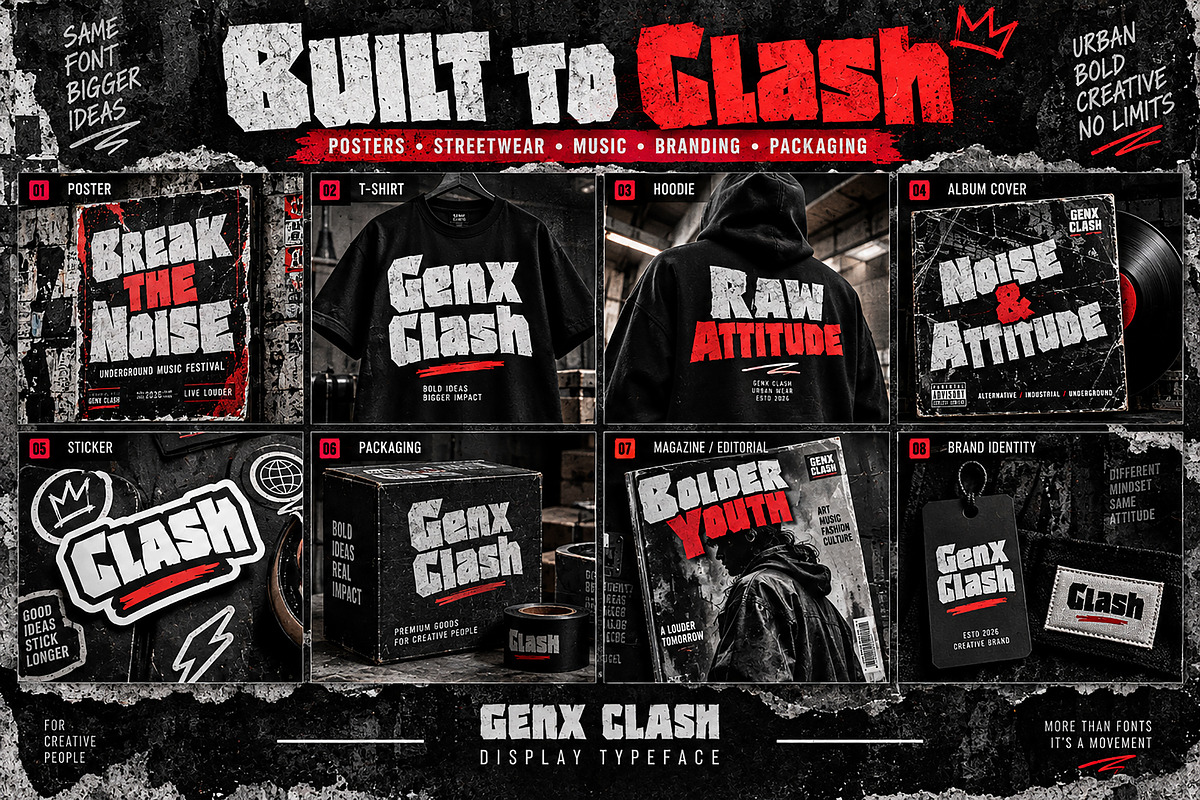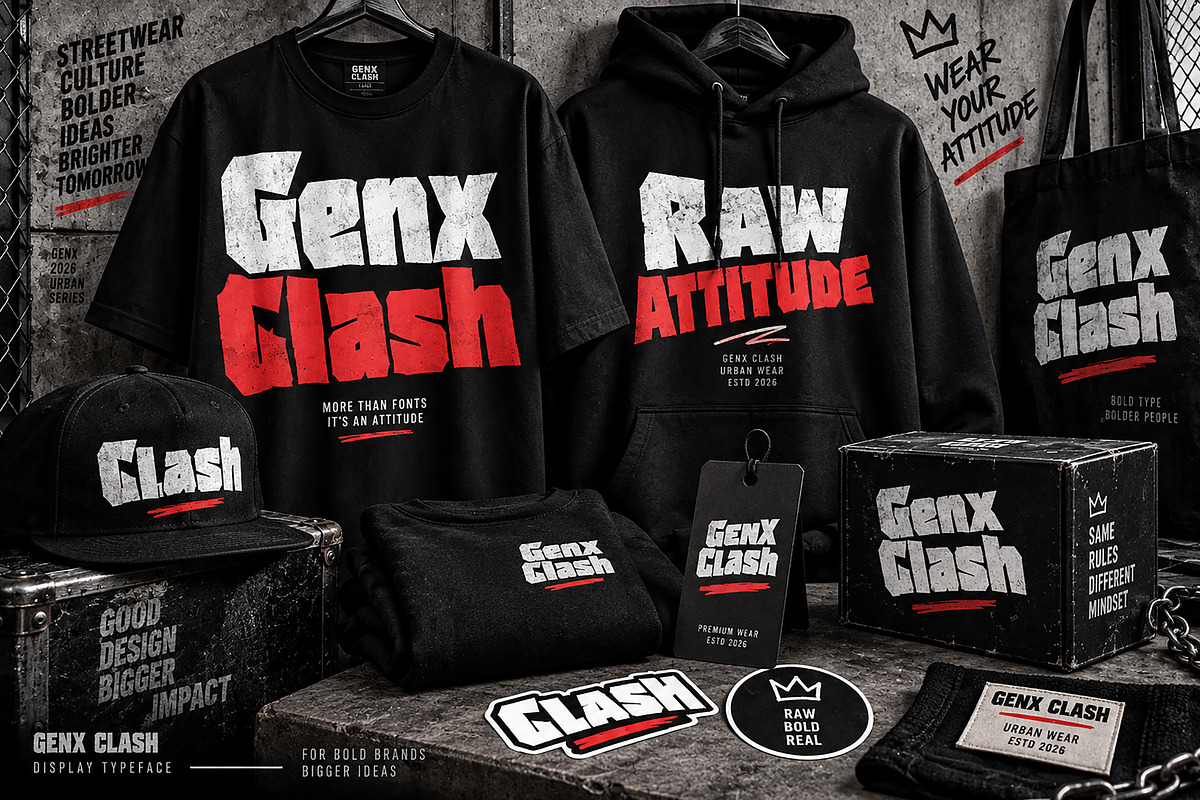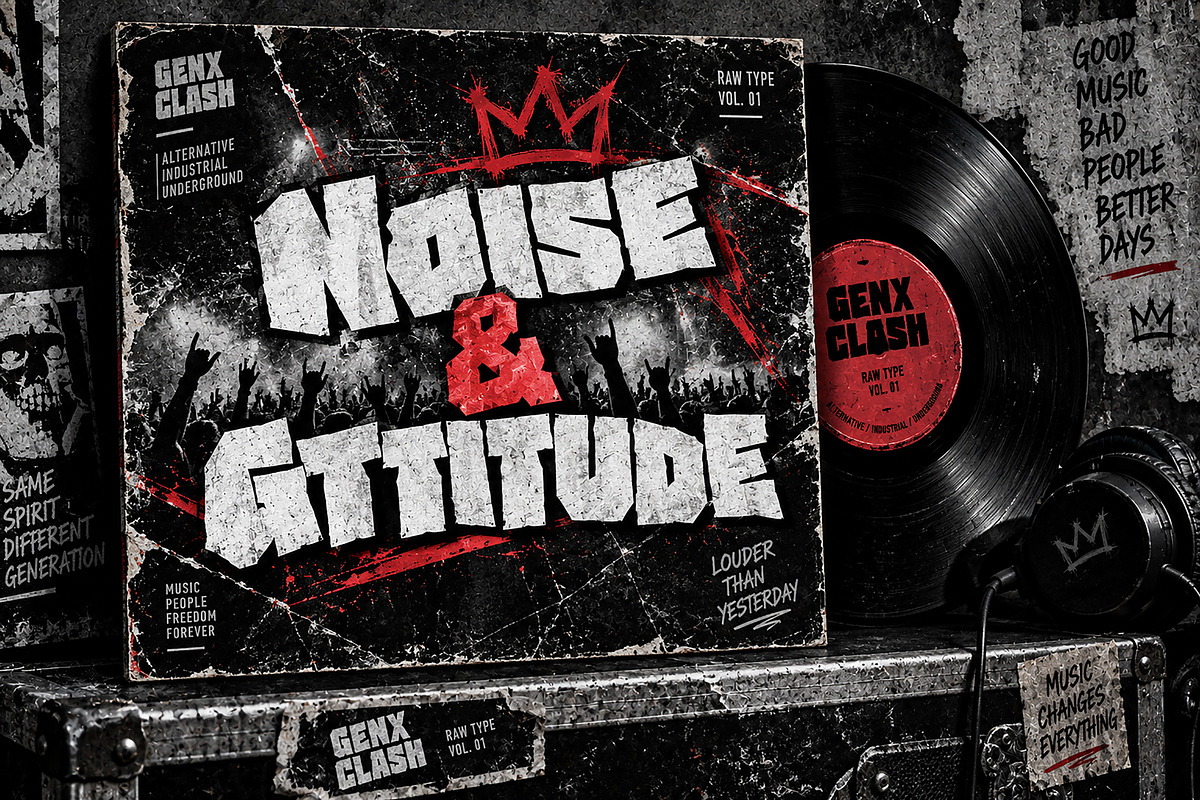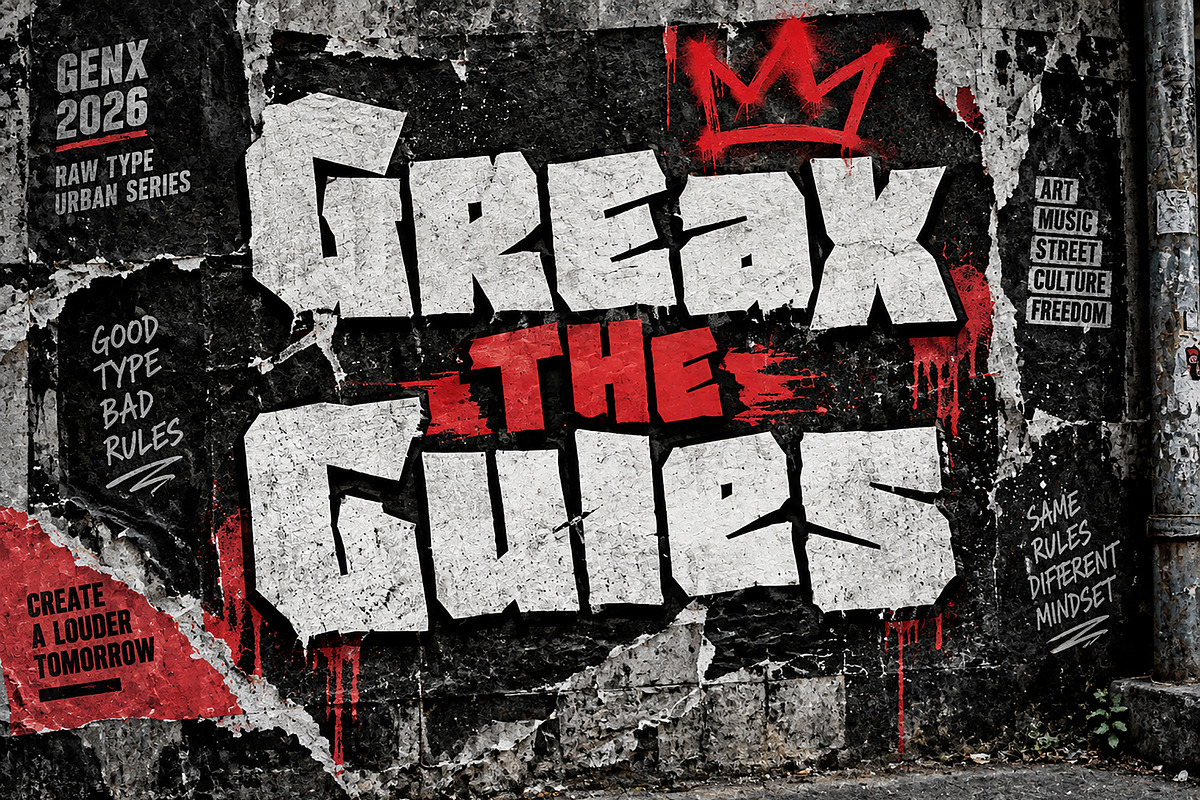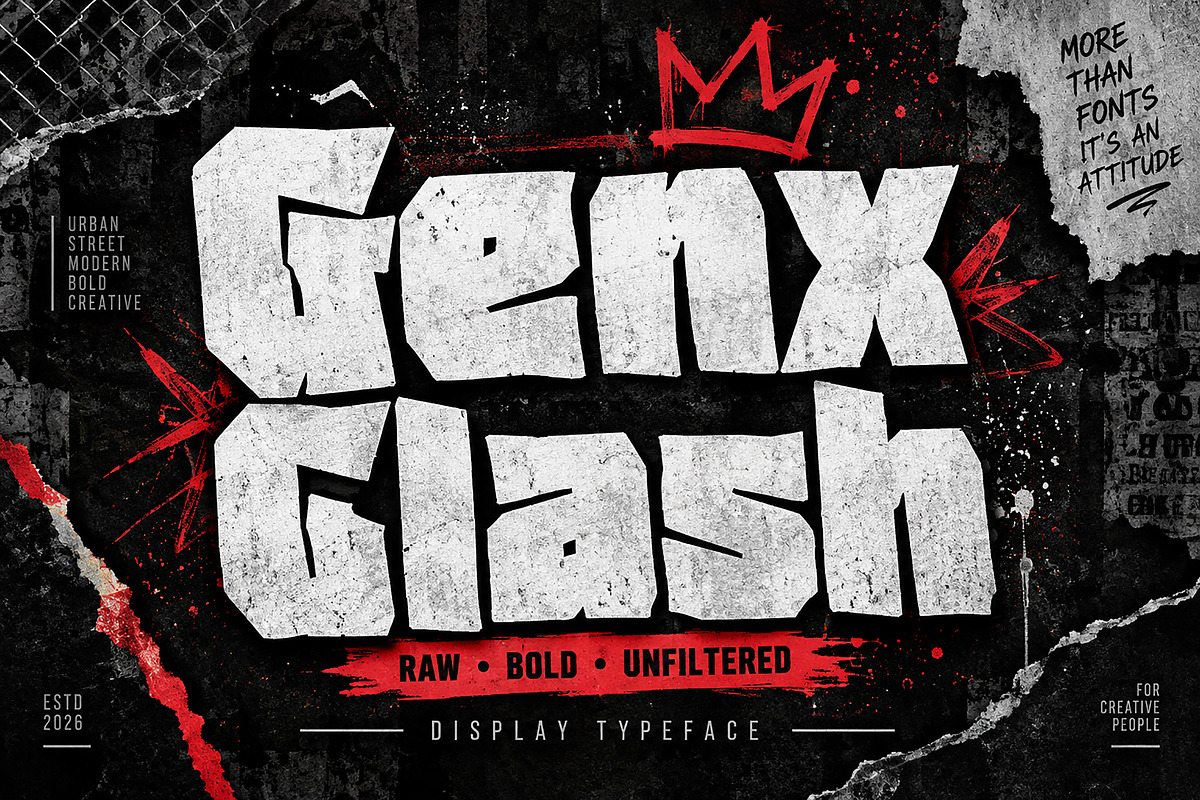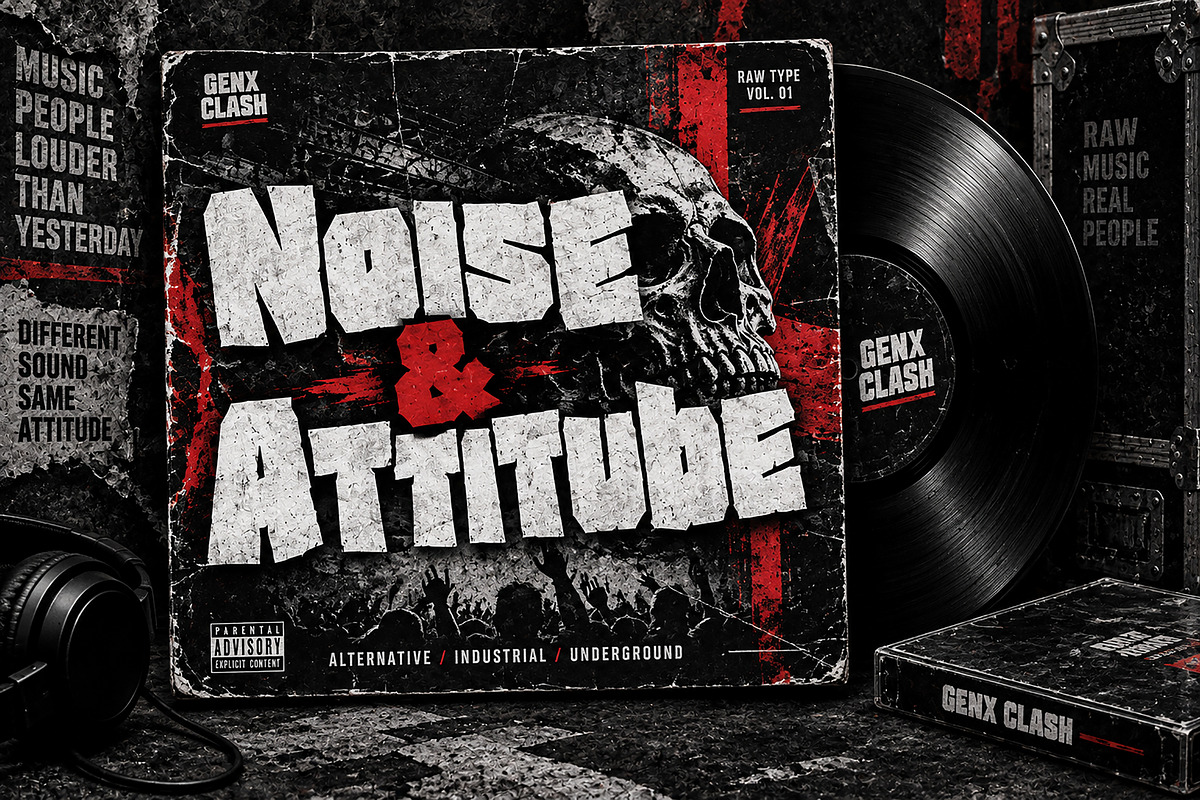
Genx Clash — Raw. Bold. Unfiltered.
Genx Clash is a bold and rebellious display typeface designed to bring raw energy, urban attitude, and experimental character to your creative projects. Its heavy, irregular, and angular letterforms create a powerful visual impact that instantly grabs attention.
Perfect for designs that need a strong and unconventional typographic presence, Genx Clash works beautifully for streetwear branding, posters, album covers, music artwork, event flyers, apparel graphics, stickers, packaging, editorial designs, logos, labels, and other bold display projects.
Whether you're creating an underground music poster, an edgy fashion identity, or eye-catching merchandise, Genx Clash adds a distinctive raw, urban, and contemporary character to your design.
Streetwear & Fashion Branding
Posters & Event Flyers
Album Covers & Music Artwork
T-Shirts & Hoodies
Stickers & Merchandise
Packaging & Product Branding
Editorial & Magazine Designs
Logos & Brand Identity
Labels & Badges
Advertising & Promotional Designs
Style: Bold / Urban / Experimental Display Typeface